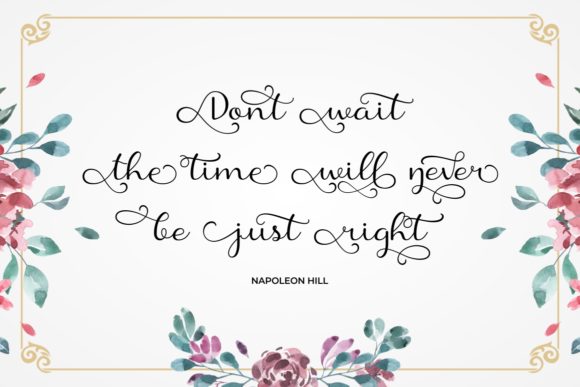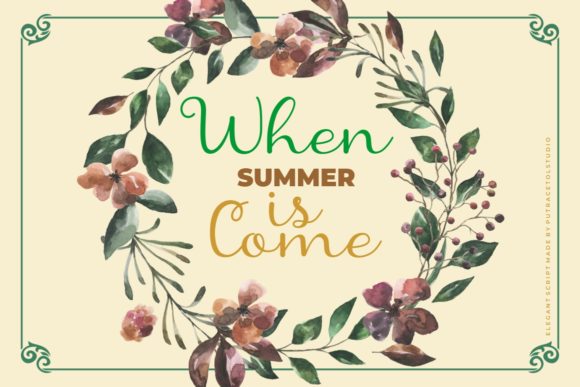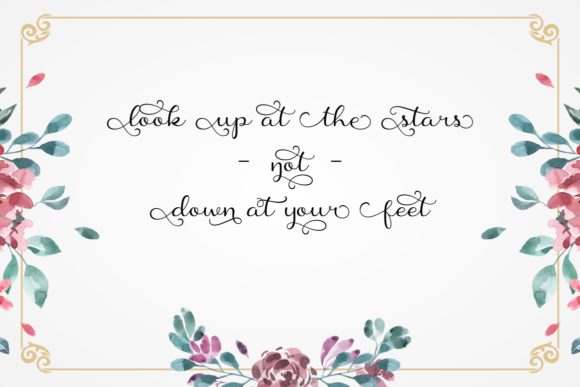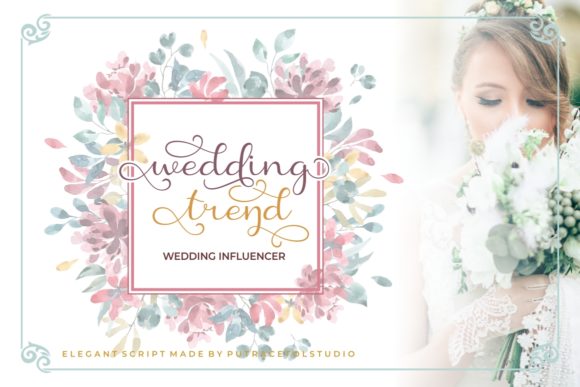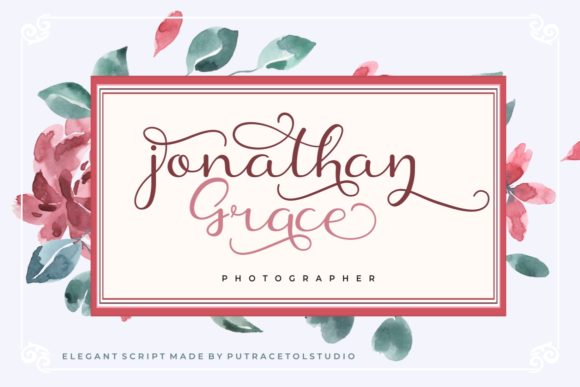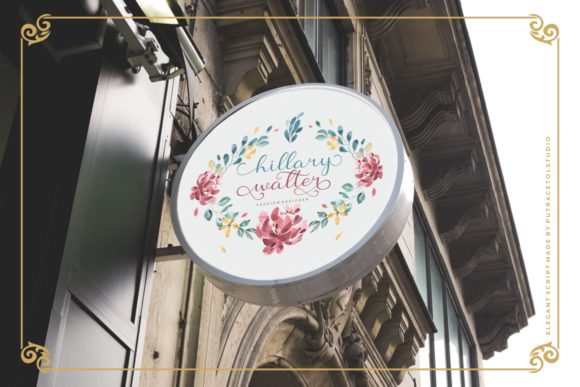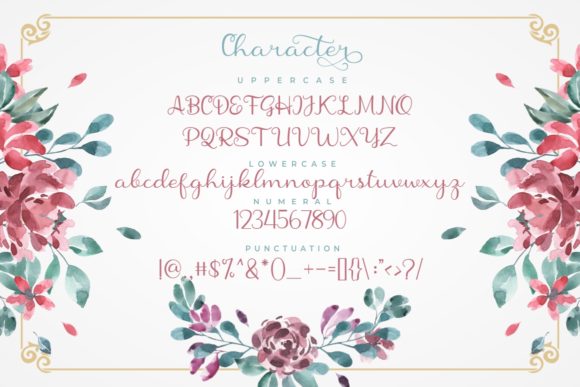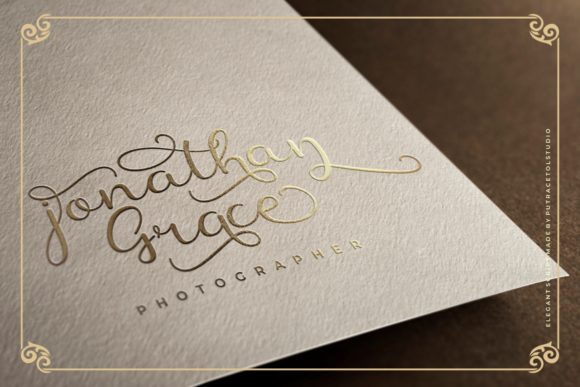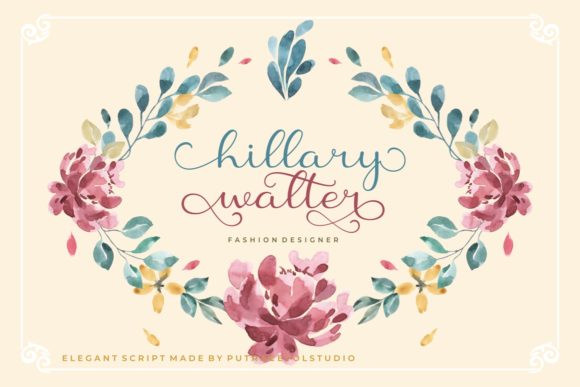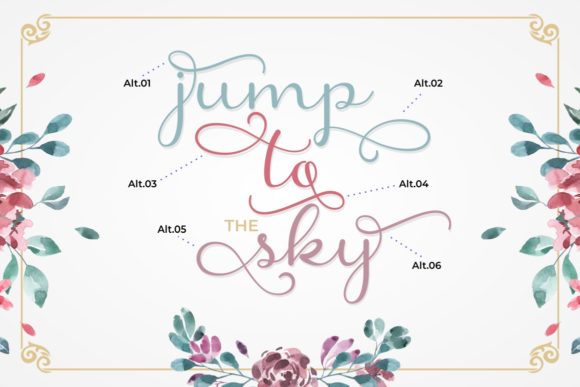
HomeScript FontsShanela Font Script Fonts Shanela Font FacebookXPinterestWhatsApp Shanela Font Poster 2 Shanela Font Poster 3 Shanela Font Poster 4 Shanela Font Poster 5 Shanela Font Poster 6 Shanela Font Poster 7 Shanela Font Poster 8 Shanela Font Poster 9 Shanela Font Poster 10 Shanela Font Poster 11 Shanela Font Poster 12 Shanela Font Poster 13 About Shanela Font Halleloo! Shanela is a fun and sweet handwritten font with beautiful swashes. Get inspired by its modern elegance! DOWNLOAD ON CREATIVE FABRICAThis font is sold and delivered by Creative Fabrica. Font Canyon may earn a commission if you buy through this link. People also explored Mermaid Font Typori Winston Andrews Font Emily Font Beauty Moonlight Font Ralista Font Elmono Font Flores Del Sol Font Plummer Font 298 0 TagsShanela Font Previous articleMountecarlo FontNext articleMellony Font LEAVE A REPLY Cancel reply Comment: Please enter your comment! Name:* Please enter your name here Email:* You have entered an incorrect email address! Please enter your email address here Website: Save my name, email, and website in this browser for the next time I comment. Personal Use Free Free Personal Use Free Read more about this font Bethania Personal Use Free Read more about this font Sushi Day Personal Use Free Read more about this font Eniem Personal Use Free Read more about this font BLOG Where to Buy American Fonts Online in 2024 Where to Buy American Fonts Online: The Ultimate Guide for 2024 Looking for the perfect American font to elevate your design projects? You're in the... Fonts That Capture the Spirit of New York City 5 Fonts That Will Dominate Design Trends in 2026 Transform Your Website: Elevate Your Typography with 7 Best Web Font Generators